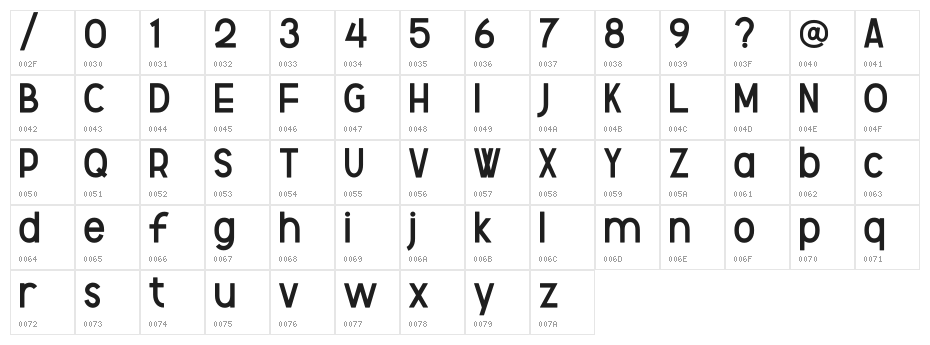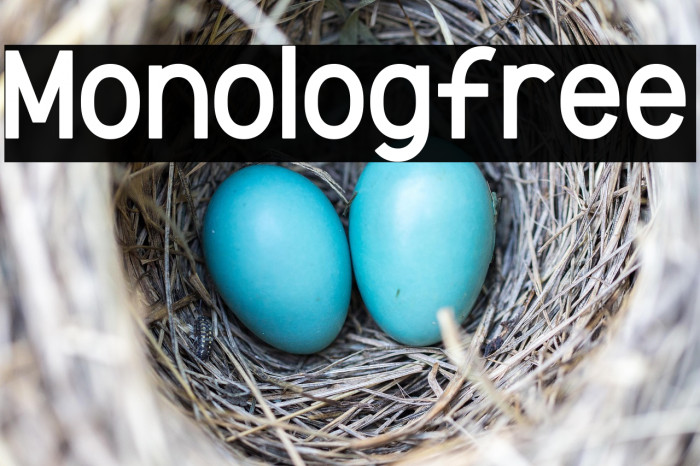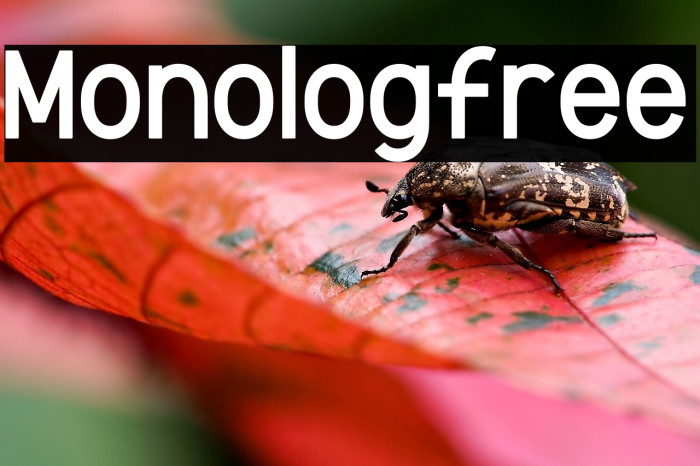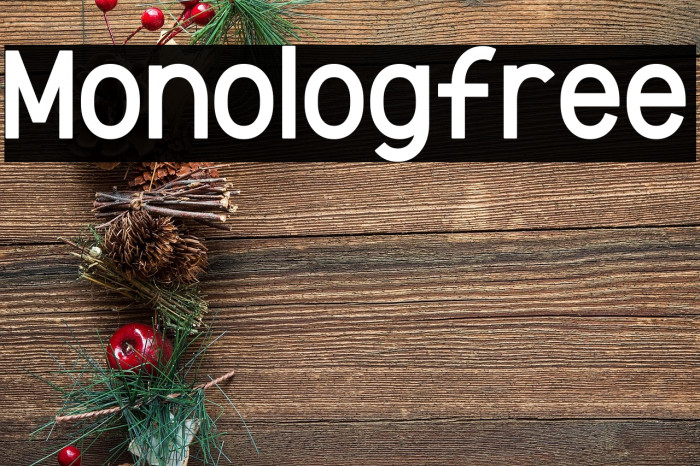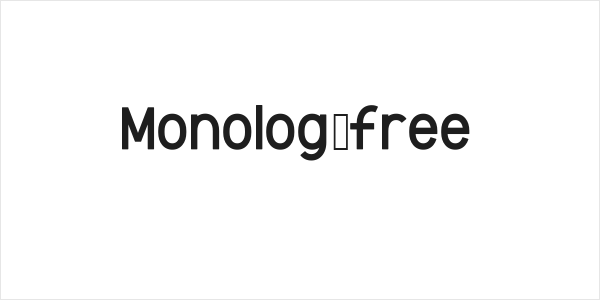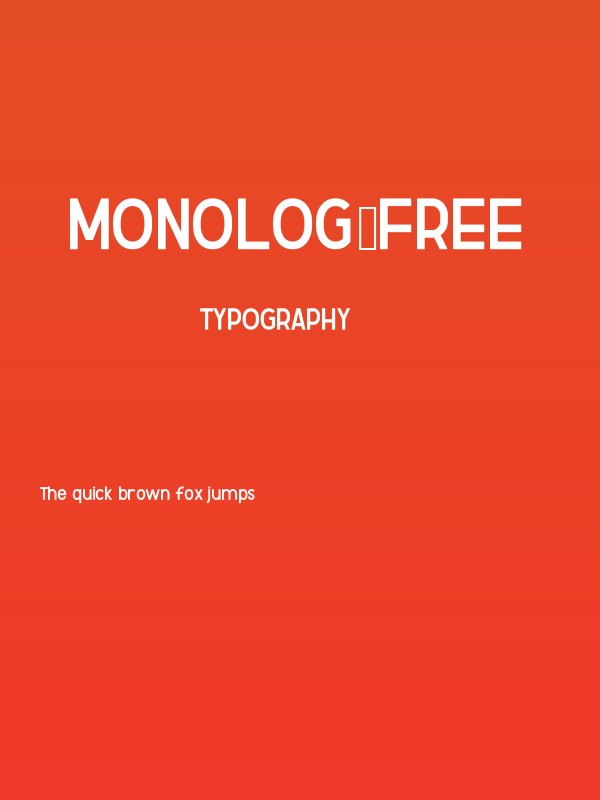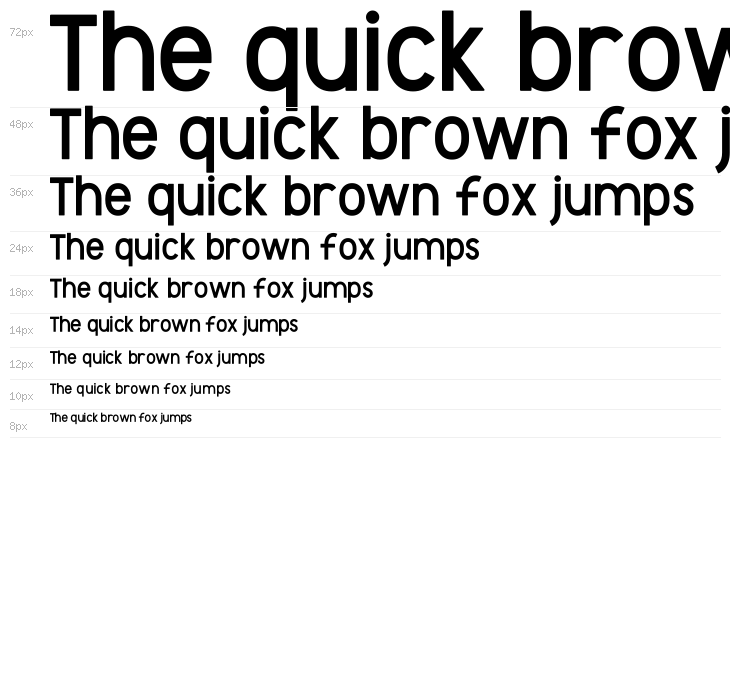
Monolog-free Font
Monolog-free Description
This font features a clean, modern sans-serif design with uniform stroke widths, giving it a sleek and contemporary appearance. The characters are well-proportioned, with a slightly condensed structure that enhances readability while maintaining a stylish aesthetic. The uppercase letters are bold and assertive, while the lowercase letters offer a softer, more approachable feel. The numerals are clear and distinct, ensuring easy legibility. Overall, this font exudes a sense of professionalism and modernity, making it suitable for a wide range of applications.
| Proposed Projects | Ideal for branding, web design, corporate materials, and editorial layouts. |